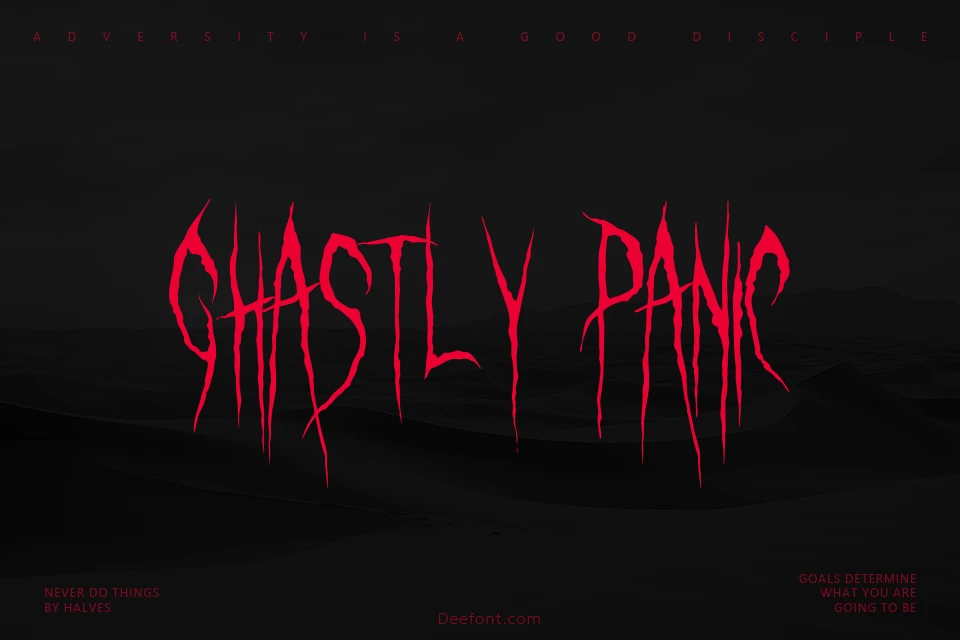
Ghastly Panic Font
Ghastly Panic Font is a haunting display typeface created by Chad Savage of Sinister Fonts in 2005, hand-lettered while watching the 2004 remake of “Dawn of the Dead”. This horror-themed typeface features elongated, jagged characters with uneven strokes that create a distressed, eerie appearance. The characters vary in size and feature pointy edges, giving the font a hand-drawn, spooky aesthetic that’s perfect for horror-themed designs.
The font’s sinister energy makes it particularly suitable for Halloween designs, horror projects, and any creative work requiring a spine-chilling atmosphere.